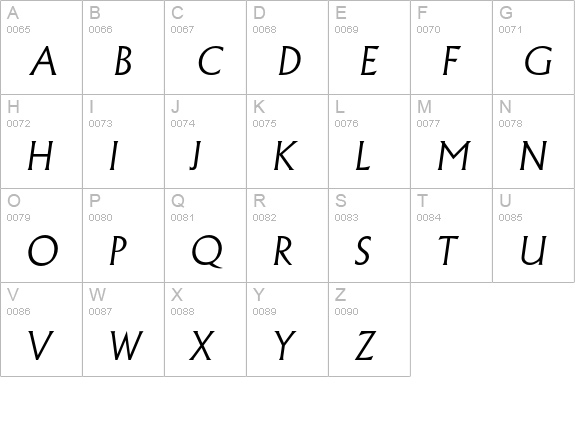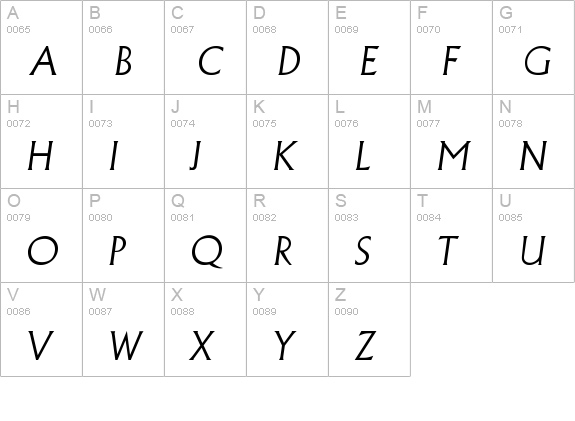
Adelon-LightIta font is a beautifully crafted typeface that exudes elegance and sophistication. Its delicate strokes and graceful curves make it perfect for adding a touch of refinement to any design project. The soft, italicized letters flow effortlessly, creating a sense of movement and fluidity on the page. Whether used for headlines, body text, or branding, Adelon-LightIta font will surely captivate and impress. The best part? Adelon-LightIta font is available for free download at FontsMarket.com. This means that you can easily access this stunning typeface and incorporate it into your projects without breaking the bank. Don't miss out on the opportunity to enhance your designs with the timeless beauty of Adelon-LightIta font. Download it today and elevate your creations to new heights.